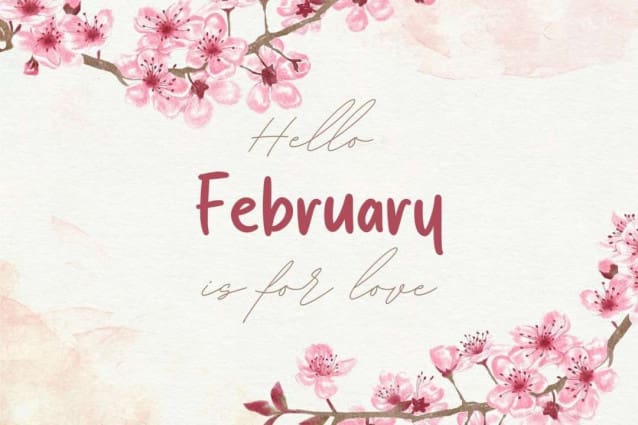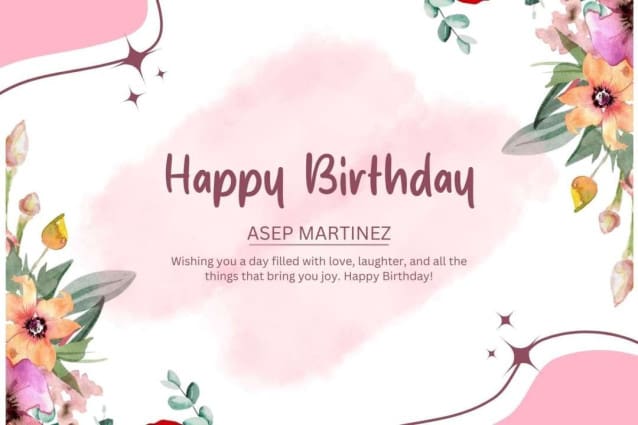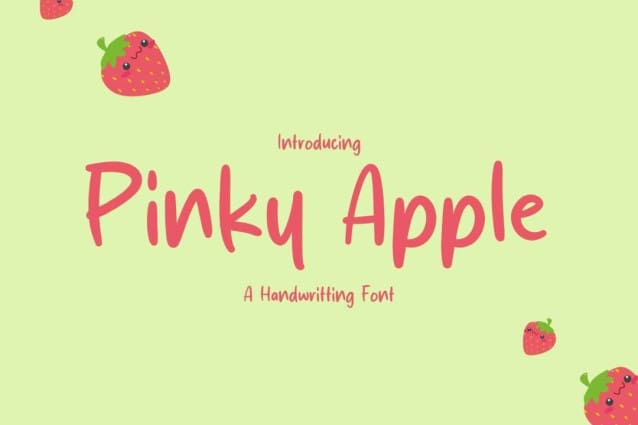
Pinky Apple Font
Pinky Apple Font is a simple and friendly handwritten font. Its natural and unique style makes it incredibly fitting to a large pool of designs. The only limit is your imagination!